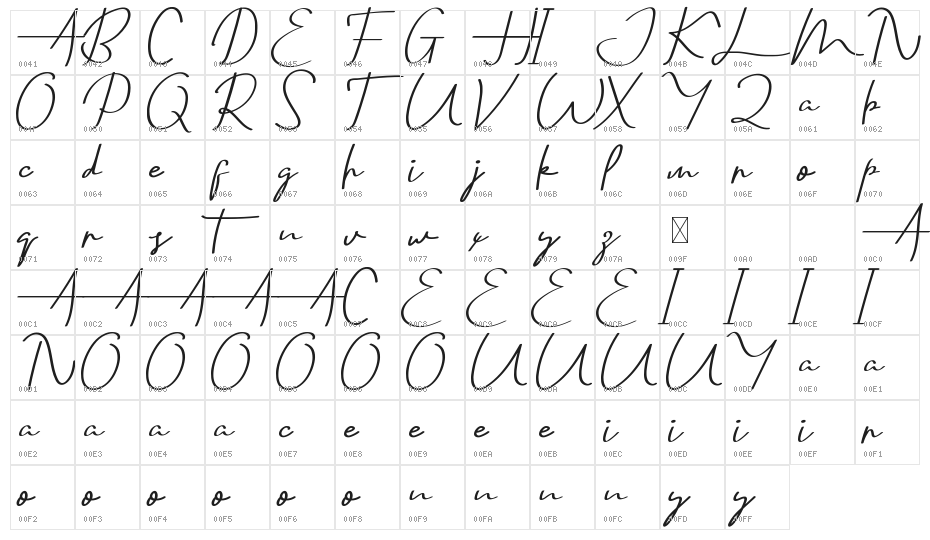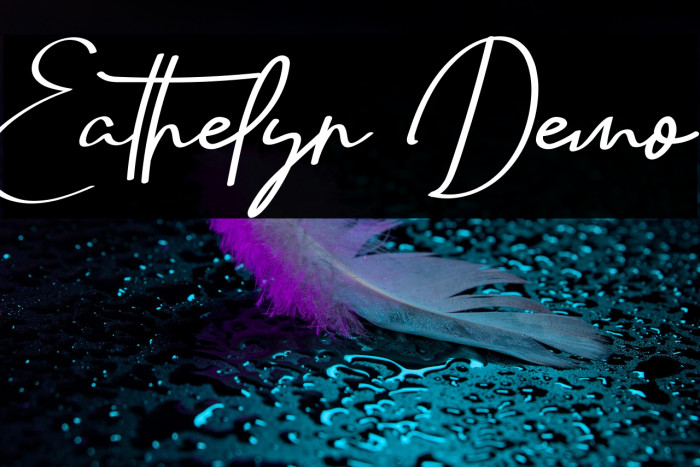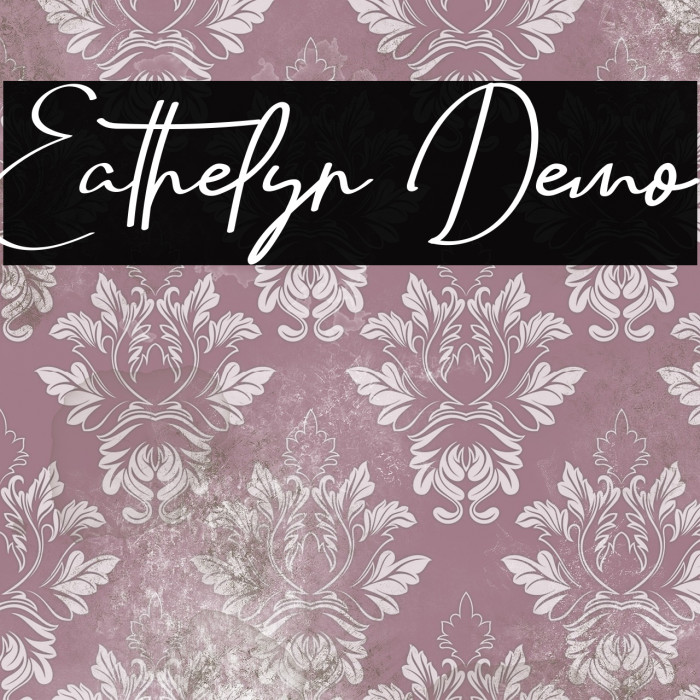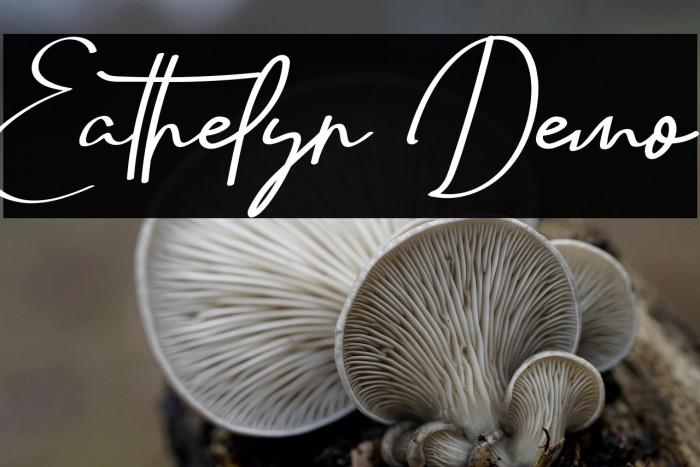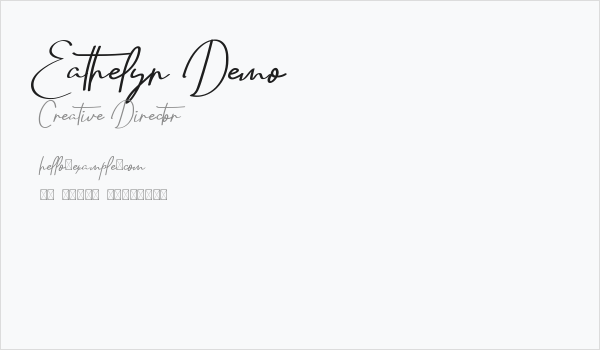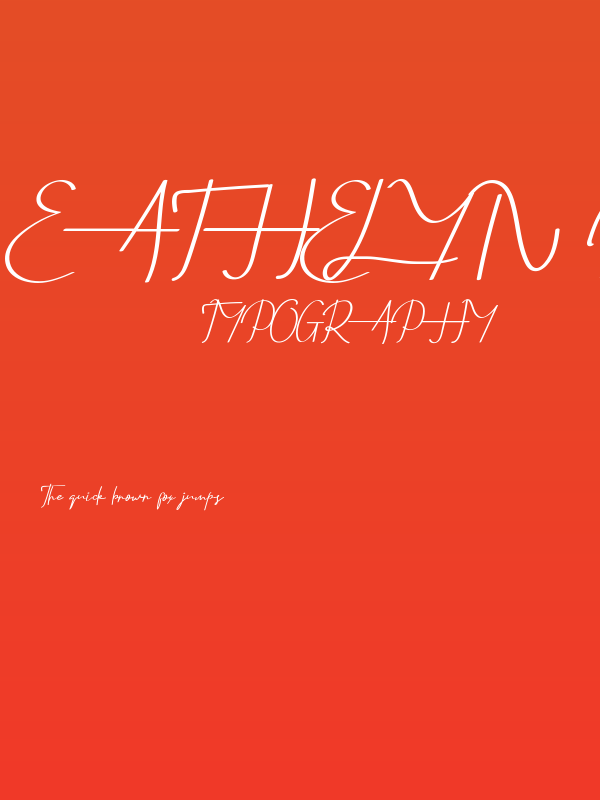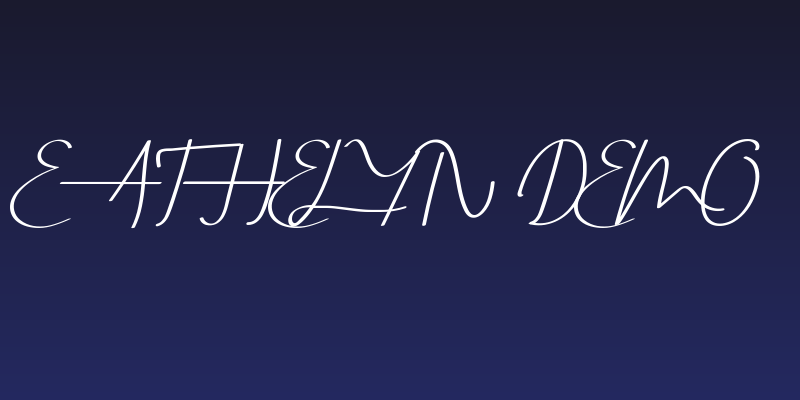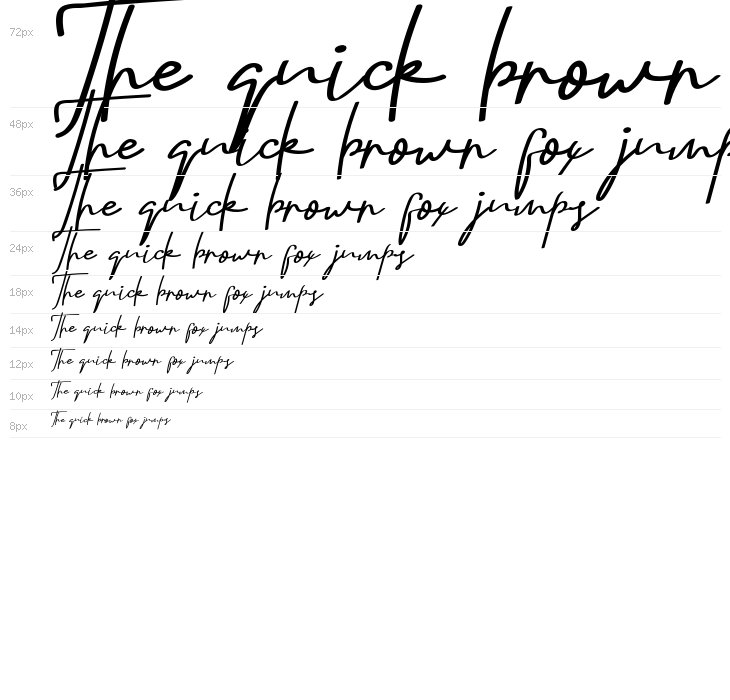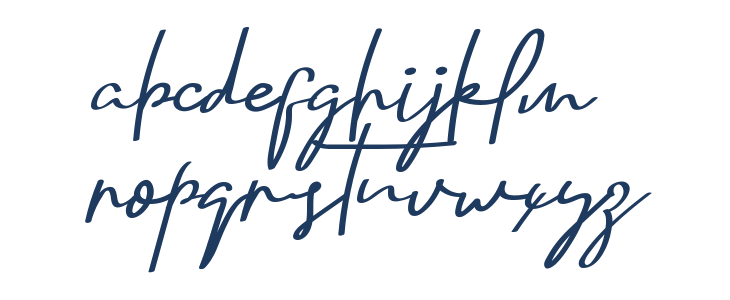
Eathelyn Demo Font
Eathelyn Demo Description
This font features an elegant and flowing script style, characterized by its fluid, interconnected letterforms. The uppercase letters are tall and slender, with a graceful, sweeping motion that gives them a sense of movement and sophistication. The lowercase letters maintain a consistent flow, with some letters extending below the baseline, adding to the font's dynamic nature. The strokes are smooth and continuous, creating a harmonious and cohesive appearance. This font exudes a sense of elegance and refinement, making it ideal for projects that require a touch of class and sophistication.
| Overall Style | Elegant, Sophisticated |
| Proposed Projects | Ideal for wedding invitations, elegant branding, personal signatures, and upscale packaging. |